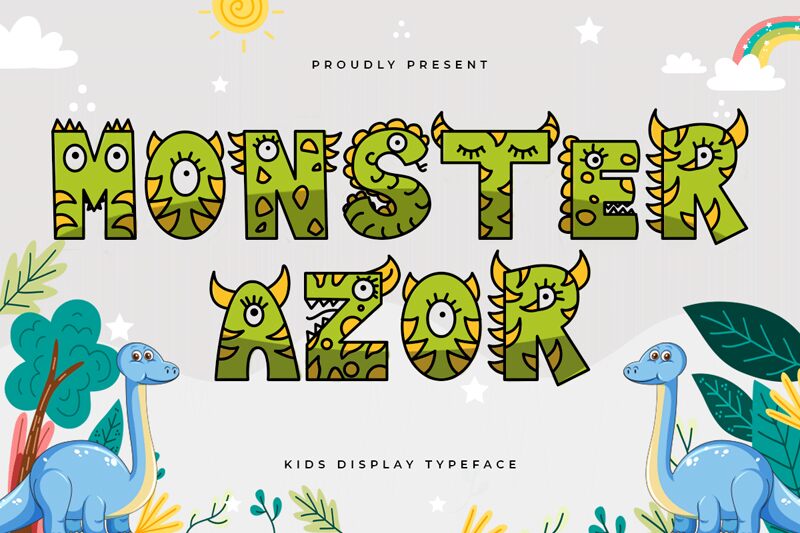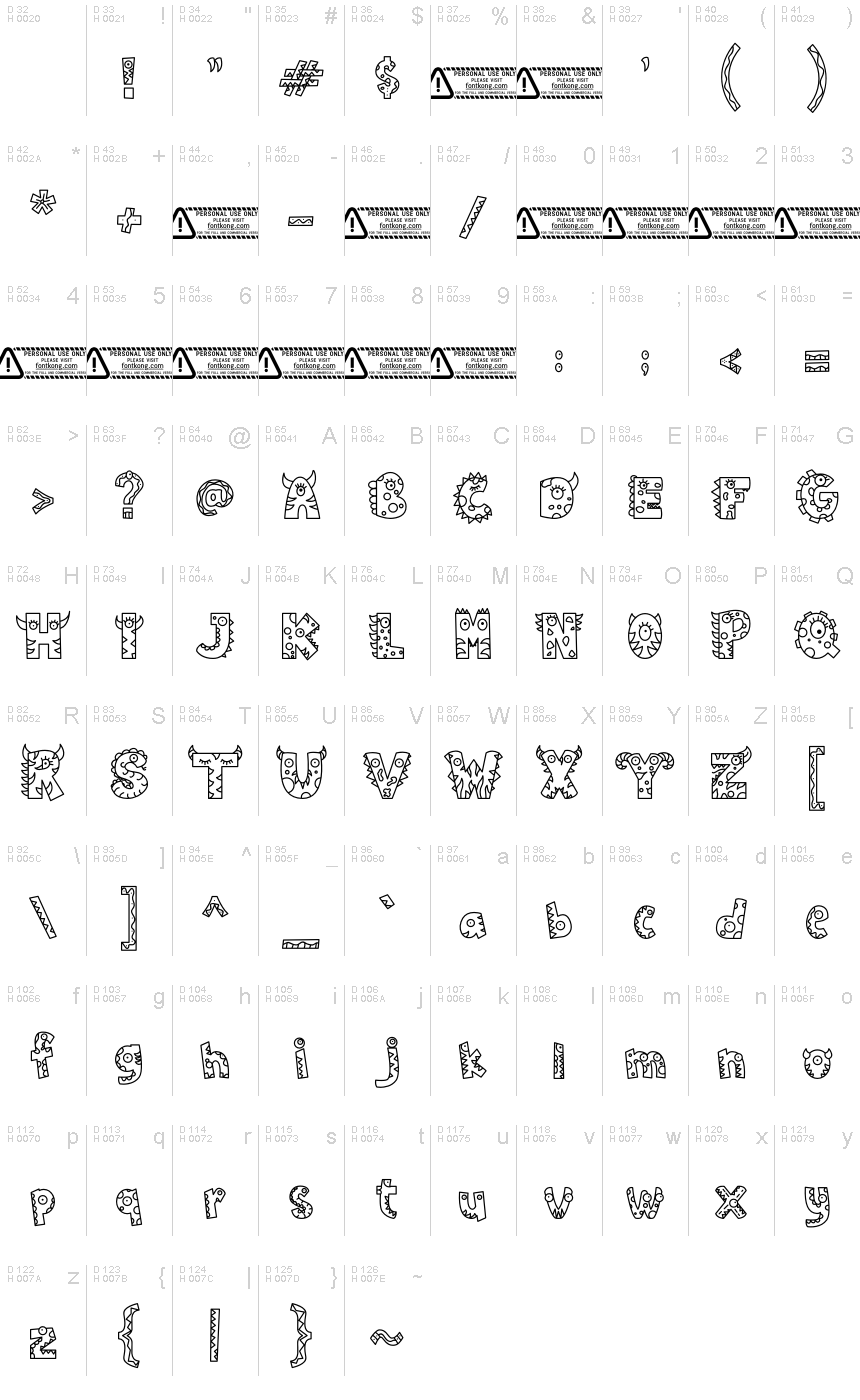
Monsterazor
Monsterazor font is designed by Kong Font. Monsterazor font is a whimsical and decorative cartoon bold display typeface, with irregular shapes and textured appearance. It brings together playful decorative letters and fun doodles, filling your design with imagination – and fun! The letters are drawn in an iconic style that gives a sense of captivating things to anywhere you put it on!
With such creative attributes, the uses are extensive! Craft striking headlines, unleash creativity in children’s books or bake up irresistible goods packaging design. It also shines as wall prints or displays for exhibitions where creativity reigns supreme. Kingly impact? Monsterazer has got your back.